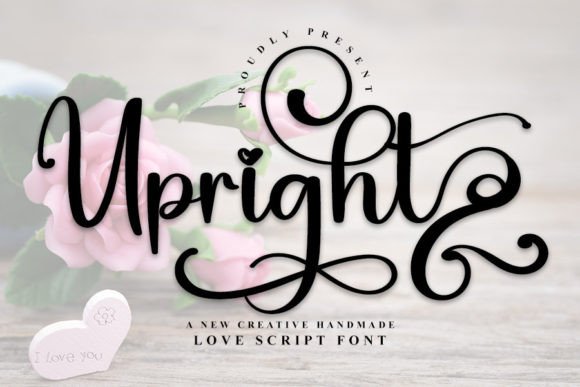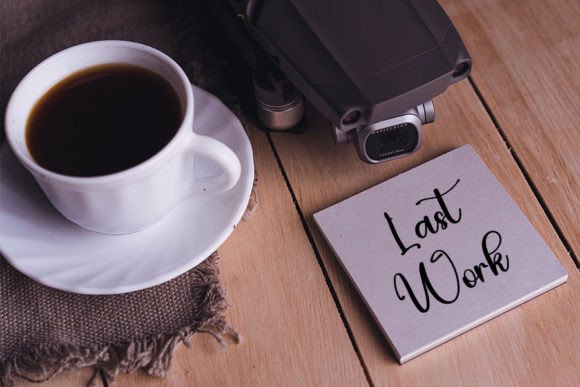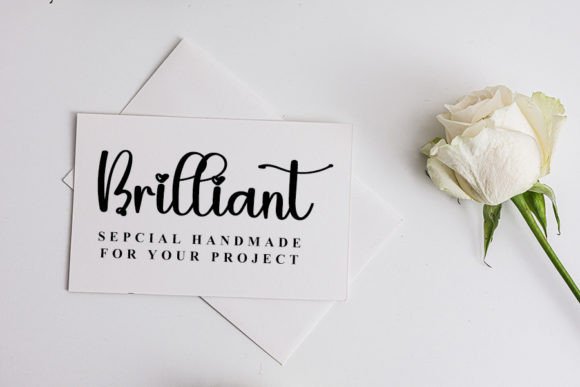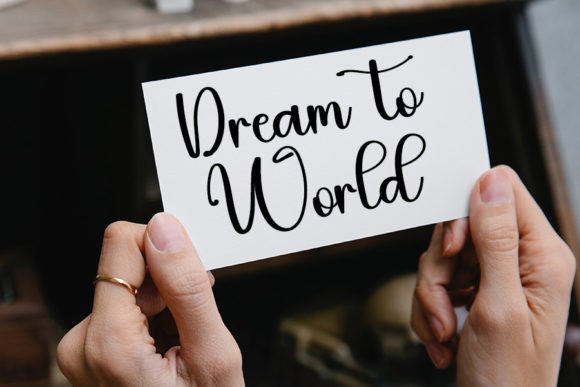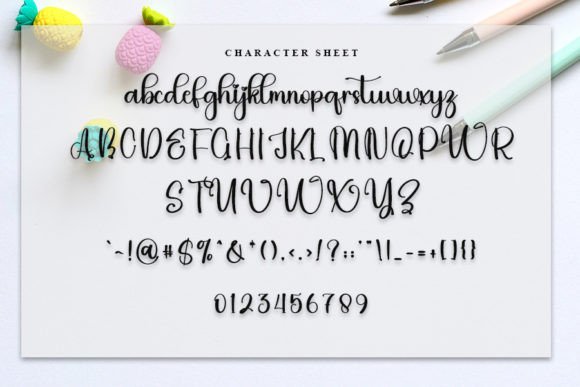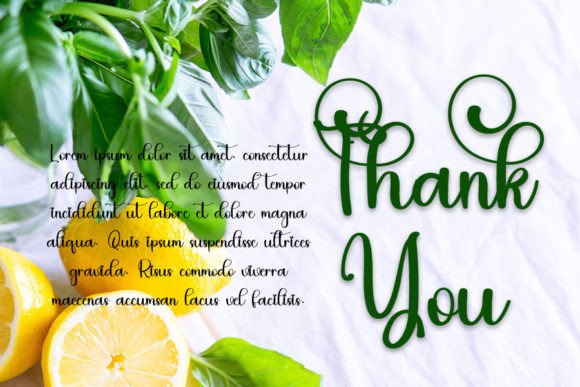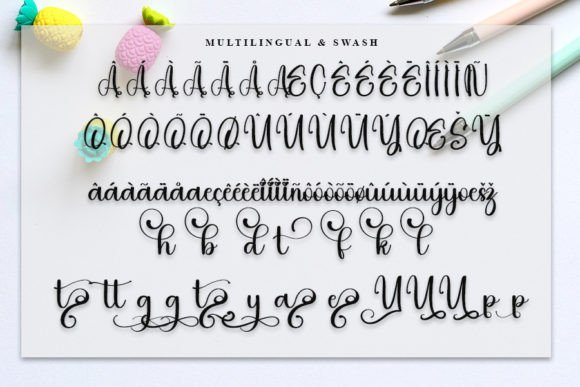
Upright Font
About Upright Font
“Our Wedding” is an elegant script font that brings a contemporary atmosphere and impeccable form to your design projects. Inspired by timeless classic calligraphy, this font strikes a balance between not being too thin or too thick. With a design that is both balanced and varied, “Our Wedding” was created to enhance the beauty of your projects, especially those related to weddings and other special occasions.
The elegance of “Our Wedding” makes it a perfect choice for projects that require a touch of sophistication, such as wedding invitations, save-the-date cards, and other wedding-related materials. The script style adds a sense of romance and formality, contributing to the overall refined aesthetic.
The contemporary atmosphere of the font makes it versatile for various design contexts. Whether you’re working on wedding stationery, branding, or other creative projects, “Our Wedding” adapts seamlessly, adding a timeless and stylish quality to your text.
The balanced and varied design of “Our Wedding” ensures that the font is visually appealing and versatile. It can be used for headlines, logos, or any other design element where an elegant script is desired.
In summary, “Our Wedding” is more than just a font; it’s a design asset that brings elegance and contemporary style to your projects. Whether you’re designing for weddings or other special occasions, “Our Wedding” enhances the beauty of your typography with its impeccable form and timeless calligraphic inspiration.